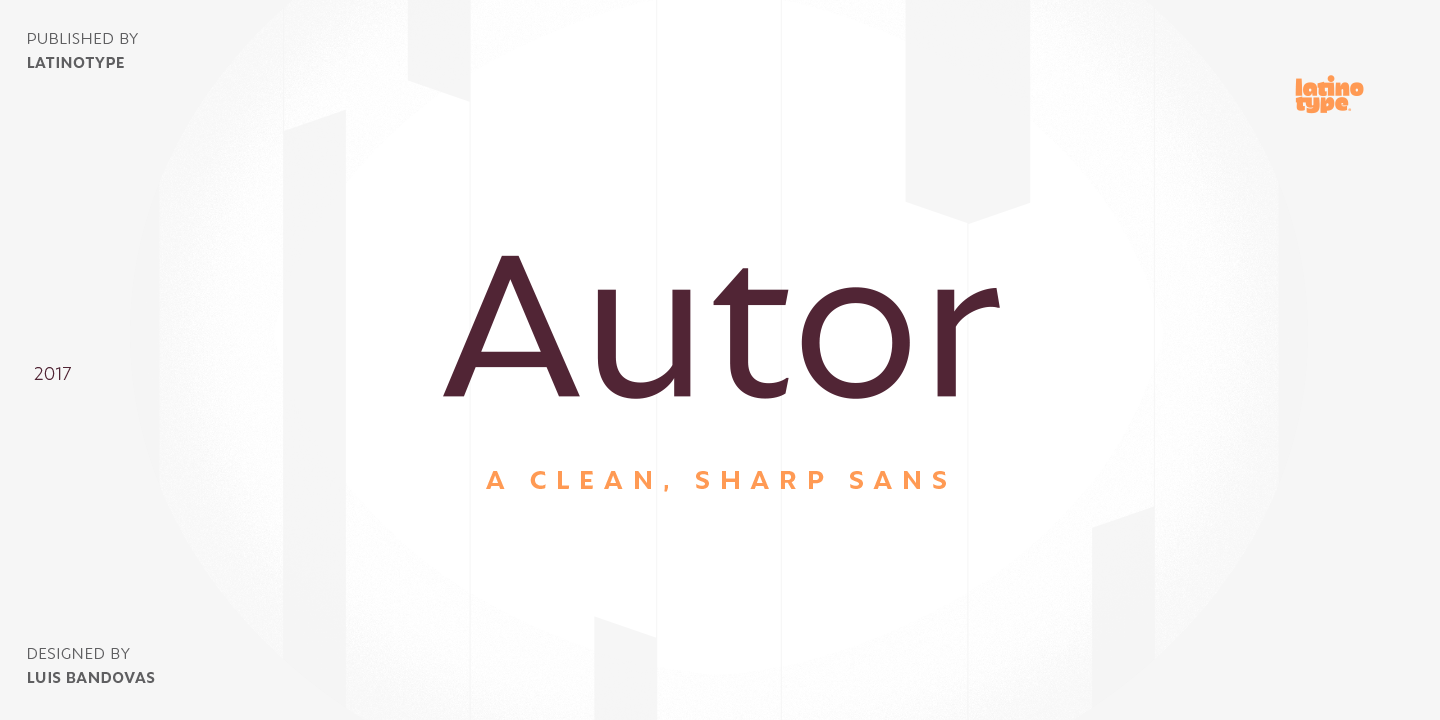
Autor Font excels in various design applications including publishing house branding, literary magazine layouts, author website designs, book cover typography, editorial publications, creative writing materials, literary event posters, and scholarly journal designs. This literary typeface adapts beautifully to both intellectual digital platforms and sophisticated print materials, making it perfect for designers seeking authorial elegance and literary sophistication in their visual communications.
Autor Font generates excitement among design professionals due to its literary character and authorial styling that instantly conveys intellectual depth and creative writing excellence. The font's scholarly letterforms and writerly proportions create an immediate sense of literary authority and creative sophistication. Its authorial personality makes it particularly appealing for brands wanting to communicate intellectual creativity, literary excellence, and authorial credibility in their visual identity.
The Autor Font family encompasses multiple weights and styles including Regular, Bold, Light, Italic, and Medium variations. Each family member maintains literary design principles while offering distinct authorial characteristics. The Light weight provides gentle literary elegance for refined reading experiences, while the Bold version delivers commanding impact for powerful headlines and authorial brand statements.
Literary designers frequently choose Autor Font Free Download for projects requiring both intellectual authenticity and creative distinction. This typeface demonstrates exceptional effectiveness across publishing industries including literary magazines, academic presses, creative writing programs, and authorial brands. Its literary character allows organizations to communicate intellectual creativity while maintaining excellent readability and sophisticated visual appeal that resonates with readers and honors the craft of writing.